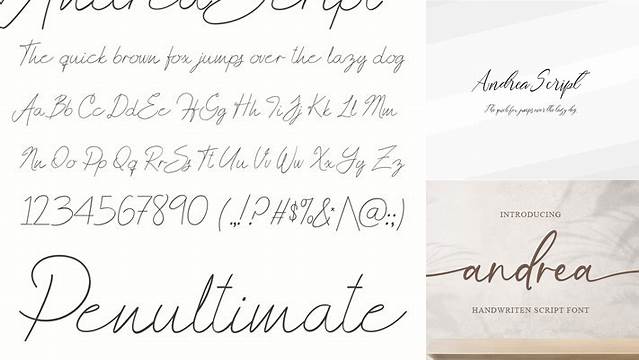
Are you looking to capture the elegance and personal touch of handwriting in your digital projects? Look no further! The Andrea Handwriting font, specifically the Andrea Script Upright version, offers a beautiful and authentic handwritten style that can elevate your designs. In this article, we'll dive into everything you need to know about this fantastic font, including where to find it for free download and how to best use it in your creative endeavors.
What is Andrea Handwriting Font?
Andrea Handwriting font refers to a typeface designed to mimic the natural flow and character of human handwriting. Unlike traditional fonts that often appear rigid and uniform, handwriting fonts strive to capture the unique imperfections and stylistic nuances that make each person's script distinct. Among the variations, Andrea Script Upright stands out for its clear, legible, and slightly formal appearance, making it versatile for a wide range of applications.
The beauty of Andrea Handwriting lies in its ability to add a personal touch to any project. Whether you're working on wedding invitations, branding materials, or digital art, this font can bring a sense of warmth and authenticity that is often missing in more sterile, computer-generated designs. The upright style of the Andrea Script further enhances its readability, ensuring that your message is not only beautiful but also easily understood.
When you choose Andrea Handwriting, you're opting for a font that bridges the gap between the digital and the personal. It's a way to infuse your work with humanity, making it more relatable and engaging for your audience. In a world saturated with standardized visuals, the unique charm of a handwriting font can make your projects stand out and leave a lasting impression. So, if you're aiming to add a touch of personality and elegance to your designs, Andrea Handwriting is definitely worth exploring.
Key Features of Andrea Script Upright
When you're considering a font for your creative projects, understanding its key features is essential. Andrea Script Upright comes with several distinct characteristics that make it a popular choice among designers and creatives. These features not only contribute to its aesthetic appeal but also determine its usability in various contexts.
Legibility
One of the primary advantages of Andrea Script Upright is its excellent legibility. Unlike some script fonts that can be overly stylized and difficult to read, this font maintains a clear and straightforward letterform. The upright posture of the characters ensures that each letter is easily distinguishable, making it suitable for body text as well as headings. This is particularly important when you need to convey information quickly and effectively, without sacrificing aesthetic appeal.
Elegant Design
The elegance of Andrea Script Upright is undeniable. The font features smooth, flowing lines and carefully crafted letterforms that evoke a sense of sophistication and refinement. It strikes a balance between casual handwriting and formal script, making it versatile for a wide range of applications. Whether you're designing wedding invitations, branding materials, or social media graphics, this font can add a touch of class to your work.
Versatility
Andrea Script Upright is highly versatile and can be used in various design contexts. Its clean and legible design makes it suitable for both print and digital media. You can use it for headlines, body text, logos, and more. It also pairs well with other fonts, allowing you to create visually interesting and balanced designs. Whether you're working on a minimalist project or a more elaborate design, this font can adapt to your needs.
Personal Touch
One of the main reasons people choose handwriting fonts is to add a personal touch to their projects. Andrea Script Upright excels in this area, capturing the natural imperfections and nuances of human handwriting. This makes your designs feel more authentic and relatable, which can be particularly important for projects that aim to connect with an audience on an emotional level. The personal touch of this font can help your work stand out and leave a lasting impression.
Upright Posture
Unlike many script fonts that lean or slant, Andrea Script Upright maintains an upright posture. This not only enhances its legibility but also gives it a more formal and professional appearance. The upright design makes it easier to read in longer blocks of text and ensures that it remains clear and legible even at smaller sizes. This is a key feature that sets it apart from other script fonts and makes it a practical choice for a wide range of applications.
So go ahead, explore the possibilities, and let Andrea Script Upright bring a touch of handwritten elegance to your next project! Remember, the right font can make all the difference in capturing your audience's attention and conveying your message with style and grace.